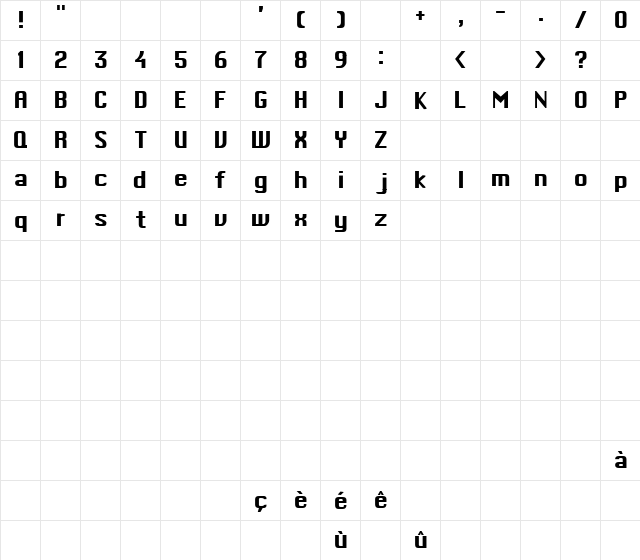
MacType Regular
Design Context for MacType Typeface
MacType is a composed and adaptable typeface that performs quietly and consistently across a wide range of design contexts.